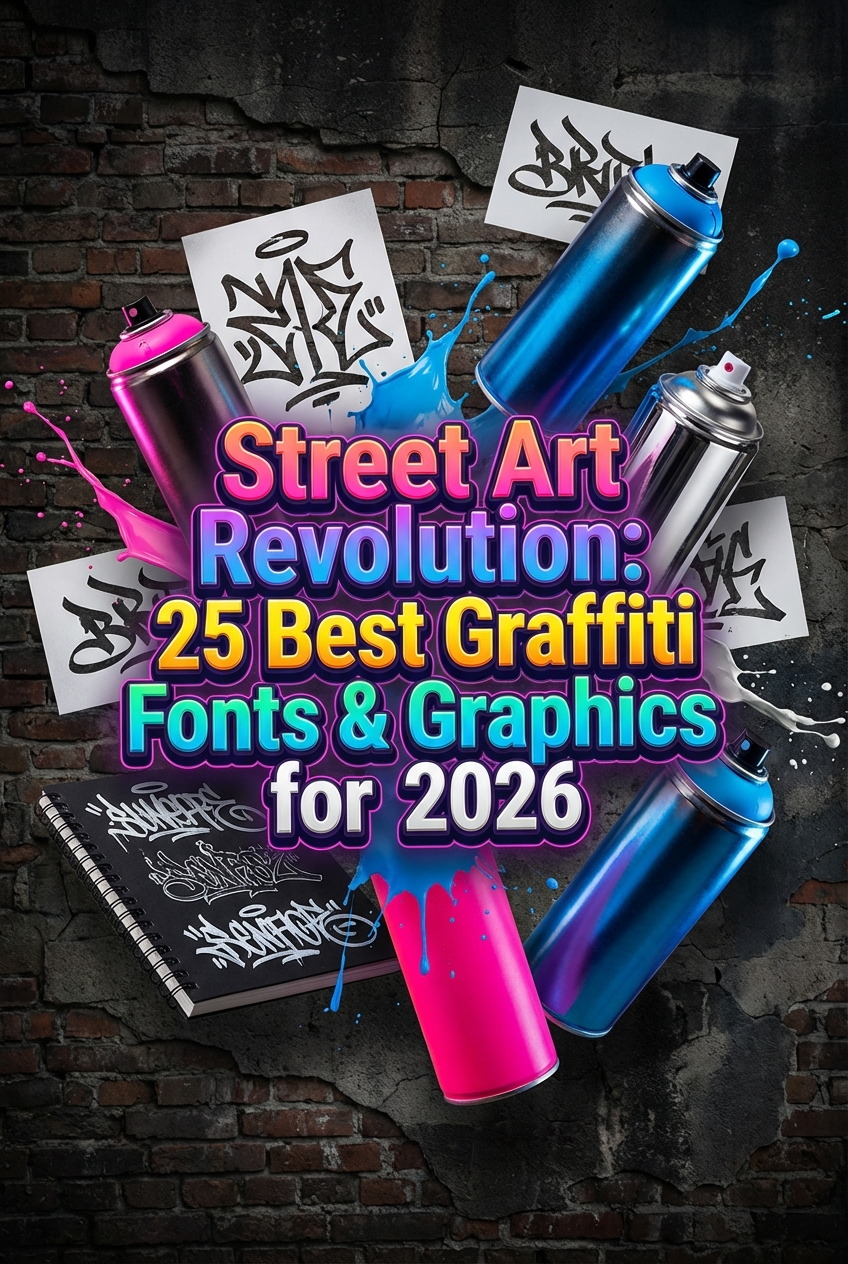
In 2026, design is all about raw energy and unapologetic authenticity, and nothing captures that spirit better than graffiti. This urban art form has exploded from city walls into the digital mainstream, influencing everything from edgy branding to dynamic social media content. For designers and DIY crafters looking to inject a dose of rebellious cool into their work, graffiti fonts and graphics are essential tools. We’ve scoured the scene to bring you the 25 most popular and high-impact graffiti designs trending right now. Get ready to spray-paint your projects with attitude and make a bold statement.
1. Street Eagle Graffiti
Street Eagle Graffiti from designer Sipanji Figuree is a masterclass in raw, typographic energy. This display font channels the untamed spirit of urban murals, delivering a sharp and assertive aesthetic that feels both authentic and incredibly current. With its aggressive strokes and dynamic flow, it brings a genuine piece of the street art scene directly into your design toolkit, perfect for projects that demand attitude and a strong visual voice.
- Aggressive, sharp-edged letterforms that mimic authentic graffiti handstyles.
- Includes a full set of uppercase characters, numerals, and punctuation for versatile use.
- Features stylistic alternates and swashes to add custom flair and movement.
- Designed as a high-impact display font ideal for large-scale applications.
- Edgy branding projects for skate, streetwear, and lifestyle brands.
- High-energy posters and flyers for concerts, festivals, and urban events.
- Apparel design, including statement t-shirts, hoodies, and snapbacks.
- Dynamic social media graphics and YouTube thumbnails that need to grab attention.
2. Retro Graffiti
Retro Graffiti channels the high-energy aesthetic of 80s and 90s street art, delivering a fresh take on classic tagging culture. This display font from Kido Studio blends chunky, rounded letterforms with sharp, dynamic angles, creating a look that is both nostalgic and unmistakably modern. Its bold weight and playful character make it an instant attention-grabber, perfect for projects that need to shout with personality while maintaining a cool, throwback vibe. It’s a powerful tool for designers looking to inject authentic urban energy into their current work.
- Bold all-caps display character set
- A collection of stylistic ligatures for an authentic feel
- Includes a full set of numerals and essential punctuation
- Streetwear apparel and merchandise branding
- Eye-catching posters for music festivals and events
- Dynamic headlines for magazines and digital zines
3. Champion Street Graffiti
Champion Street Graffiti is a vibrant blast of authentic street energy for your design toolkit. This color font from VividDoodle pulsates with the raw, untamed spirit of city walls, delivering a fresh and dynamic look without feeling forced. Its layered, spray-paint texture and bold letterforms make it a standout choice for projects that need to shout, not whisper, bringing an immediate sense of current urban culture to any layout.
- High-detail SVG OTF color font for realistic spray-paint texture.
- Bold, overlapping letterforms that mimic authentic graffiti tagging.
- Includes a full set of uppercase characters, numerals, and punctuation.
- Edgy branding and logo design for streetwear or music labels.
- Eye-catching posters and flyers for concerts, skate events, or festivals.
- Dynamic social media graphics and YouTube thumbnail text.
- Apparel design, including t-shirts, hoodies, and snapback hats.
4. Graffiti Hipster
Graffiti Hipster If you are looking for a font that merges raw street energy with a polished, contemporary edge, this is your new go-to. Created by Sigit Dwipa, this display font brings an authentic hand-sprayed feel to a clean, legible structure, making it incredibly versatile. It ditches the overly chaotic tags of traditional graffiti for a more curated, artistic vibe that feels both rebellious and design-conscious, perfect for projects that need to make a bold, stylish statement.
- A unique fusion of raw graffiti texture and clean, hipster-inspired letterforms.
- Bold, all-caps display characters designed for maximum impact in headlines.
- Authentic, hand-drawn detailing that adds a touch of urban grit.
- Includes a full set of punctuation and numerals for versatile use.
- Streetwear brand logos, t-shirt graphics, and apparel design.
- Eye-catching posters for music events, concerts, and modern art exhibitions.
- Dynamic social media branding, YouTube thumbnails, and channel art.
- Packaging and labels for products with a rebellious, youthful attitude.
5. Zieder Danger Basic Graffiti
Zieder Danger Basic Graffiti is a passionate love letter scrawled across a city wall, a bold declaration of creative freedom that refuses to be ignored. Created by Cikareotype, this display font bypasses subtlety in favor of raw, unfiltered energy. Its letterforms carry the kinetic motion of a spray can in motion, delivering an authentic street art vibe that feels both dangerous and undeniably cool. It’s the perfect tool for designers looking to make a statement that is loud, proud, and pulsing with a modern, rebellious spirit.
Pro-Tip: Many graffiti graphic packs come with layered files (PSD, AI, or EPS). Open these to deconstruct the artwork. You can turn off layers, change colors, or isolate specific elements like paint drips and splatters to create your own unique compositions.
And there you have it—25 killer graffiti designs to electrify your 2026 projects. Whether you’re designing a concert poster or customizing a t-shirt, these assets provide the authentic street edge you need. Now go ahead, break the rules, and let your creativity run wild on the digital canvas!